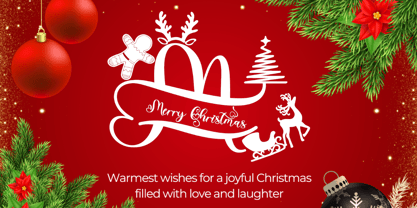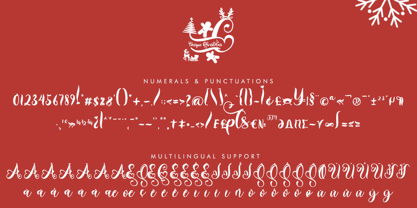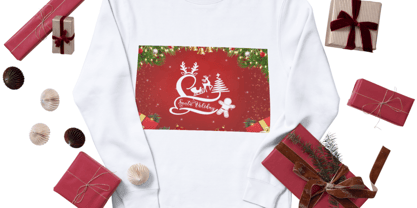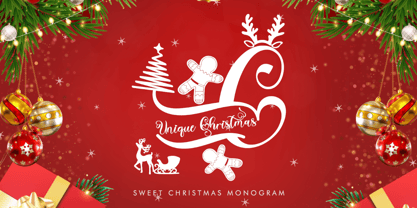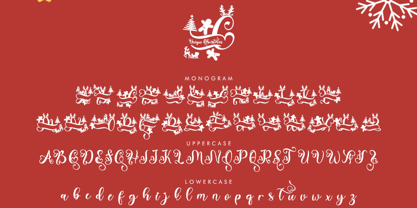
Unique Christmas Monogram
by Yoga Letter
The Unique Christmas Monogram Font Family was designed by Isroni Yoga Prasetya and published by Yoga Letter. Unique Christmas Monogram contains 2 styles and family package options.
"Unique Christmas Monogram" is a beautiful and gorgeous Christmas monogram font. It features monograms, uppercase and lowercase letters, numerals, punctuations, and multilingual support. It's perfect for banners, Christmas invitations, Halloween, weddings, holidays, fall, autumn, photography, winter, printing, branding, stickers, sublimation, and more.